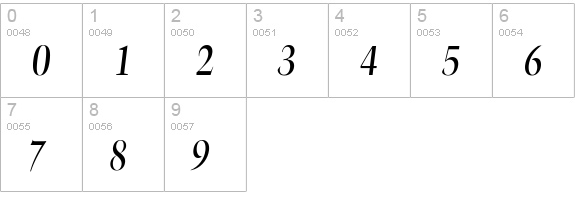
TrumpetLite Italic Font Details
TrumpetLite Italic is a distinctive, italic variant in the TrumpetLite typeface family \xE2\x80\x94 well suited to design and typography projects.
Introducing TrumpetLite Italic, a captivating font that exudes elegance and sophistication. This exquisite typeface is perfect for adding a touch of class to any design project. With its slanted and graceful letterforms, TrumpetLite Italic effortlessly combines modernity with a timeless appeal. This font boasts a unique and balanced design, making it the ideal choice for creating eye-catching logos, stylish headings, and elegant invitations. TrumpetLite Italic's slender and flowing strokes add a sense of fluidity and movement, giving your text a dynamic and engaging presence. One of the most remarkable aspects of TrumpetLite Italic is that it is available to download for free at FontsMarket.com. Yes, you read that correctly – this exceptional font can be yours without any cost. Now you can enjoy the beauty and versatility of TrumpetLite Italic without breaking the bank. Whether you are a professional designer or a typography enthusiast, TrumpetLite Italic is a must-have addition to your font collection. Its versatility allows it to effortlessly enhance a wide range of projects, from branding and packaging to digital and print media. So why wait? Experience the allure of TrumpetLite Italic today. Download this free font at FontsMarket.com and unlock a world of endless design possibilities. Elevate your creations with the timeless charm and sophistication of TrumpetLite Italic.